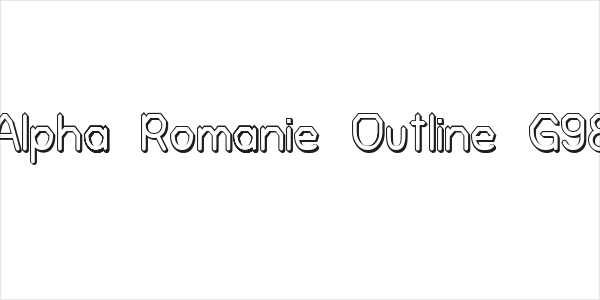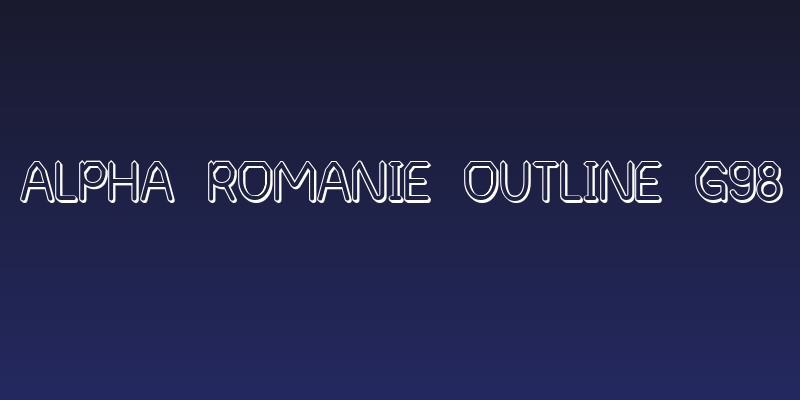
Alpha Romanie Outline G98 Font
Alpha Romanie Outline G98 Description
This font features a distinct outline style, giving it a bold and eye-catching appearance. The characters are designed with a uniform thickness, creating a consistent and harmonious look across both uppercase and lowercase letters. The geometric shapes of the letters provide a modern and structured feel, while the outline adds a playful and creative touch. The numerals and special characters maintain the same outlined aesthetic, ensuring a cohesive design throughout. This font is versatile and can be used in various design projects where a standout, contemporary look is desired.
Proposed ProjectsIdeal for posters, logos, headlines, and any design needing a bold, modern statement.